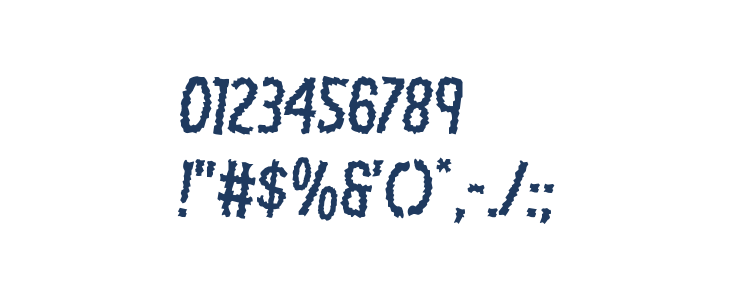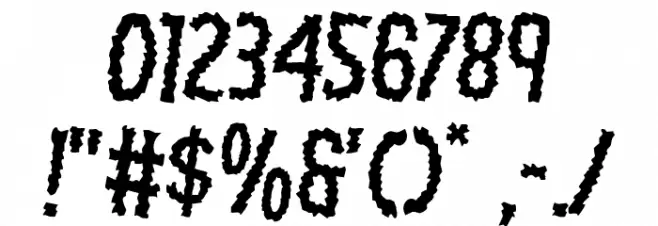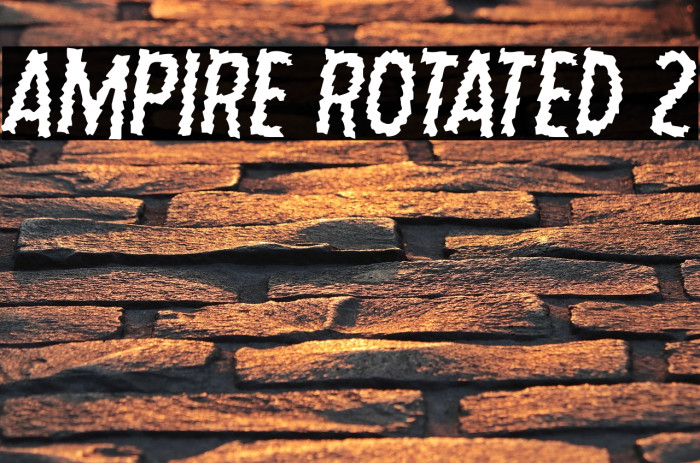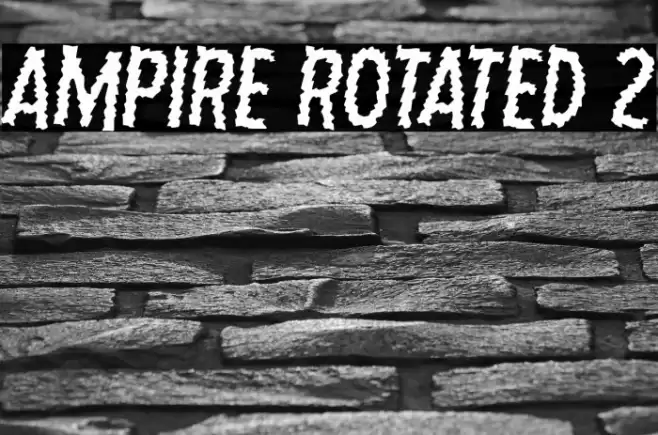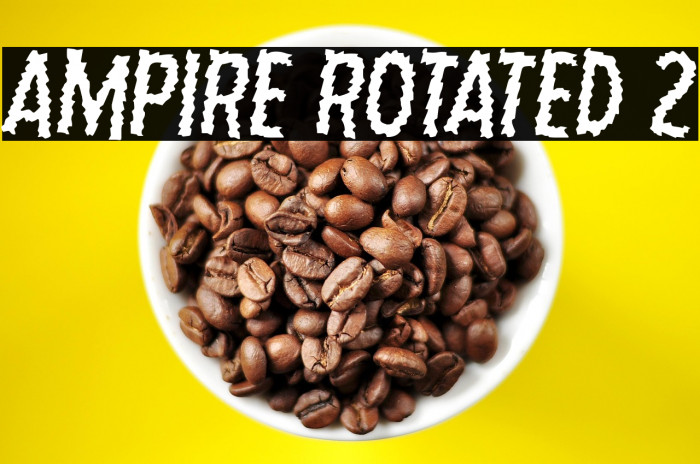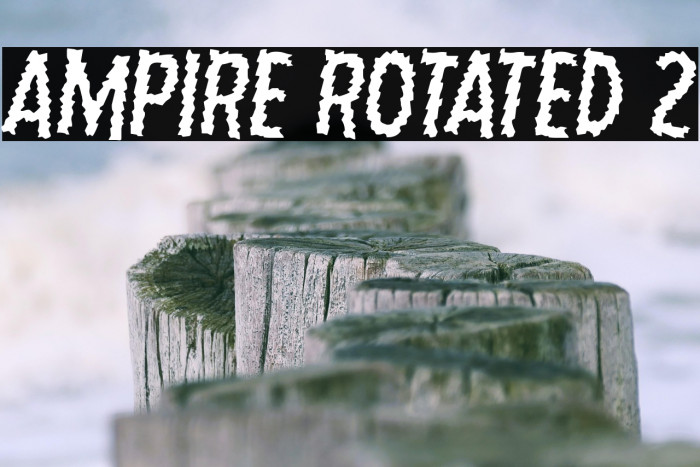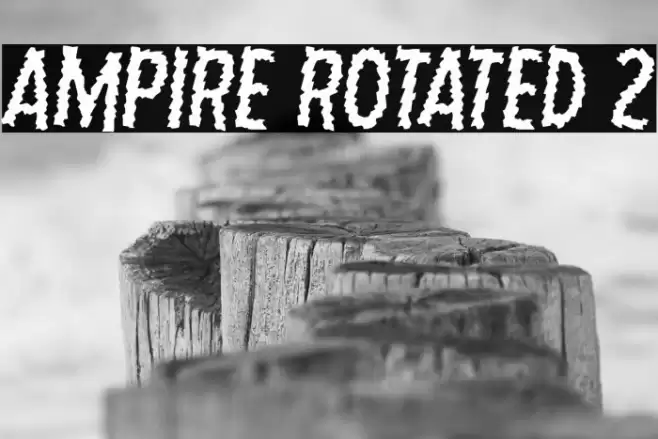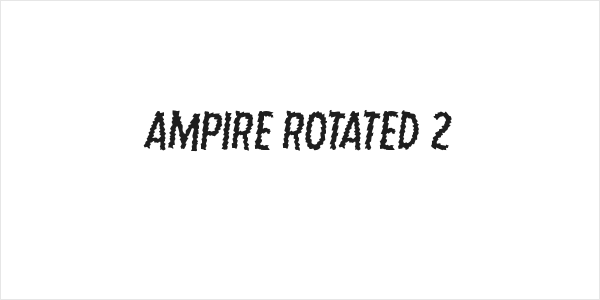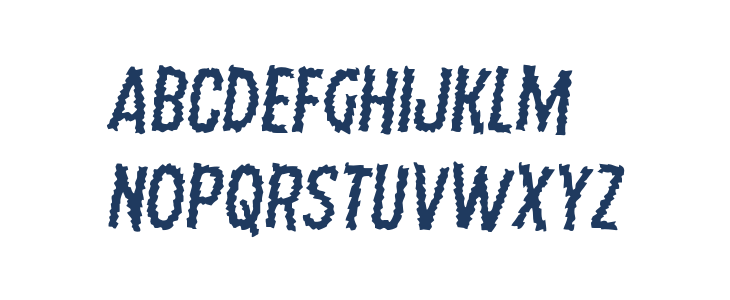
Ampire Rotated 2 Font
Ampire Rotated 2 Description
This font features a bold and jagged design, reminiscent of lightning bolts or sharp edges. The characters are heavily stylized with a dynamic and energetic appearance, making them stand out with a sense of movement and intensity. The uppercase and lowercase letters maintain a consistent style, with each character exhibiting a unique angularity that adds to the overall dramatic effect. The numbers and special characters follow the same design principles, ensuring a cohesive look across all glyphs. This font is ideal for projects that require a striking and unconventional aesthetic.